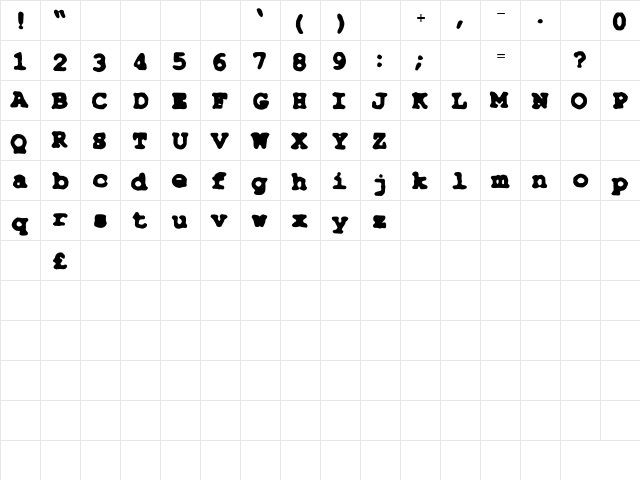
Type-Simple Regular Font Preview
Type-Simple Regular
Design Context for Type-Simple Typeface
Type-Simple is a composed and adaptable typeface that performs quietly and consistently across a wide range of design contexts.